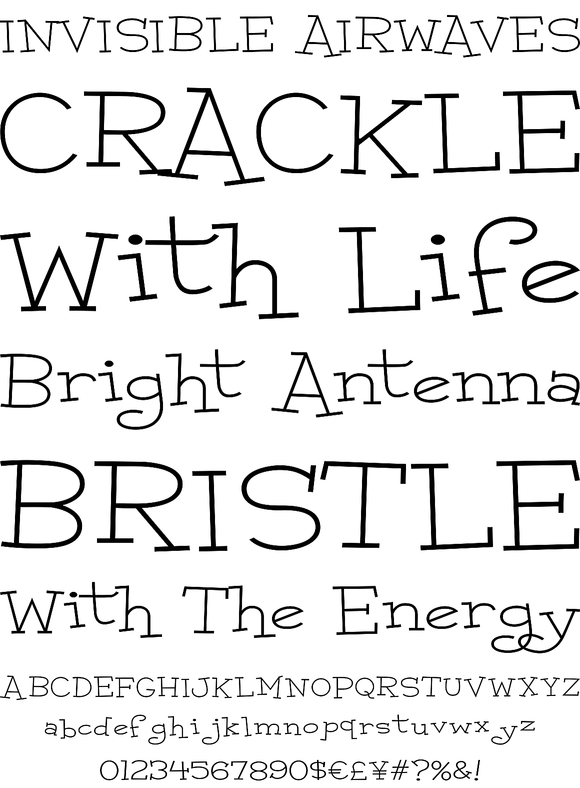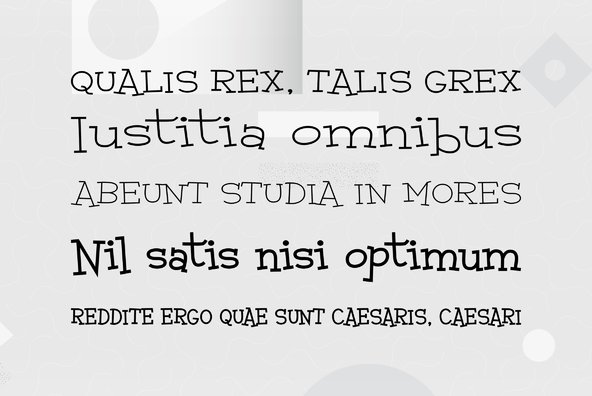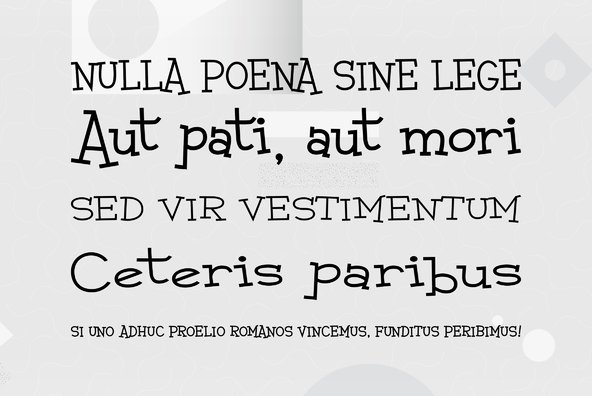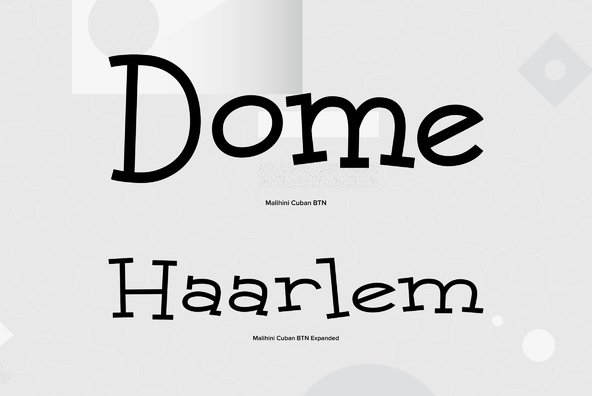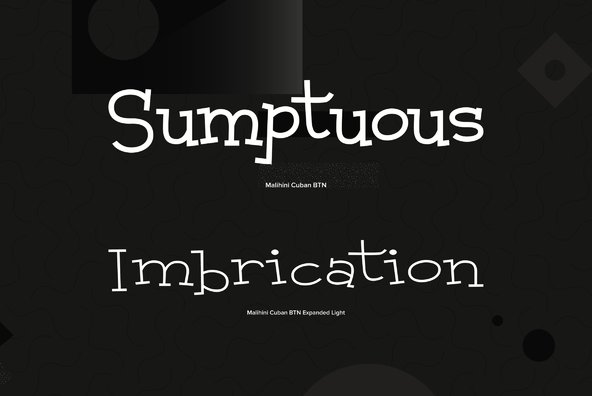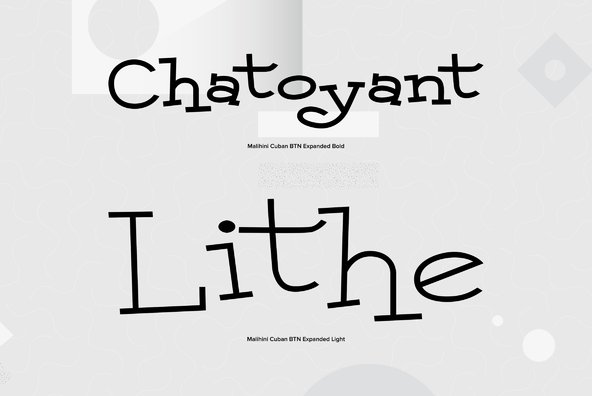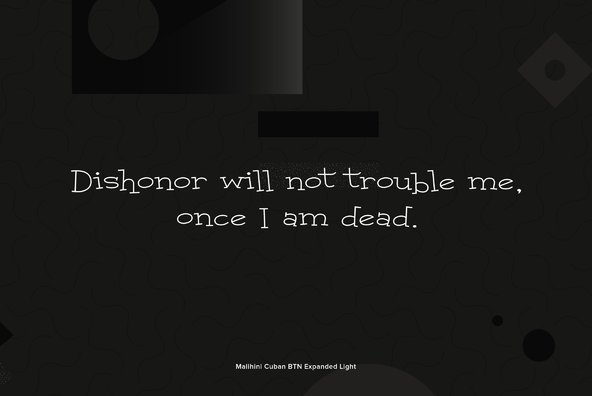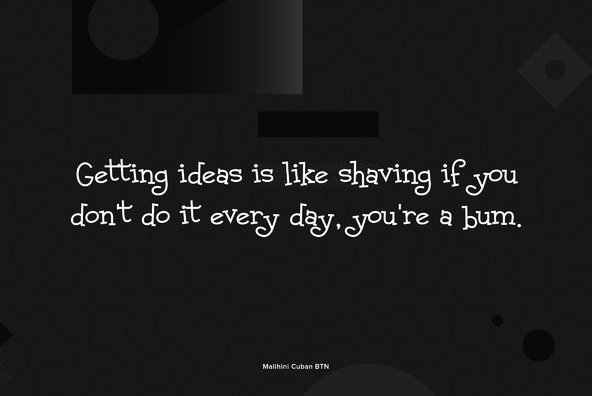
Malihini Cuban
Foundry: Breaking The Norm
Malihini Cuban is a playful exotic typeface for any island visitor. Malihini literally means foreign visitor, but there is nothing foreign about this fun family!